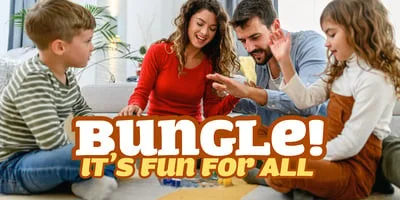
Boldina Font
This confident typeface excels in empowerment campaign branding, strong leadership materials, bold fashion labels, assertive business communications, powerful statement designs, motivational poster layouts, confident brand identities, and impactful presentations. Its fearless character makes it perfect for projects requiring commanding presence and bold self-expression.
Boldina Font generates excitement through its fearless confidence that captures the empowering spirit of bold leadership and unapologetic self-expression. The font's strong strokes and assertive letterforms create an atmosphere of unwavering determination that resonates with audiences seeking empowerment and authentic boldness. Its courageously crafted character variations deliver statement-making readability while maintaining distinctive confident personality that reflects the power of bold communication and the transformative impact of fearless self-expression and leadership.
The Boldina Font family includes multiple empowerment variations such as regular, light, extra bold, condensed, and statement styles. Each family member maintains the distinctive bold aesthetic while offering different levels of confident sophistication for various empowerment applications. This fearless collection allows designers to create powerful compositions that celebrate the full spectrum of bold experiences from quiet confidence to thunderous declarations of strength.
The Boldina Font offers designers access to premium empowerment typography that brings authentic bold energy to any project. Its confident character and fearless appeal make it ideal for creating memorable leadership brands and engaging empowerment communications that inspire courage. Whether developing motivational identities, designing bold materials, or crafting confident marketing campaigns, this font provides the bold authenticity and empowerment spirit essential for connecting with audiences who embrace fearless leadership, seek personal empowerment, and understand the transformative power of bold self-expression and confident communication.